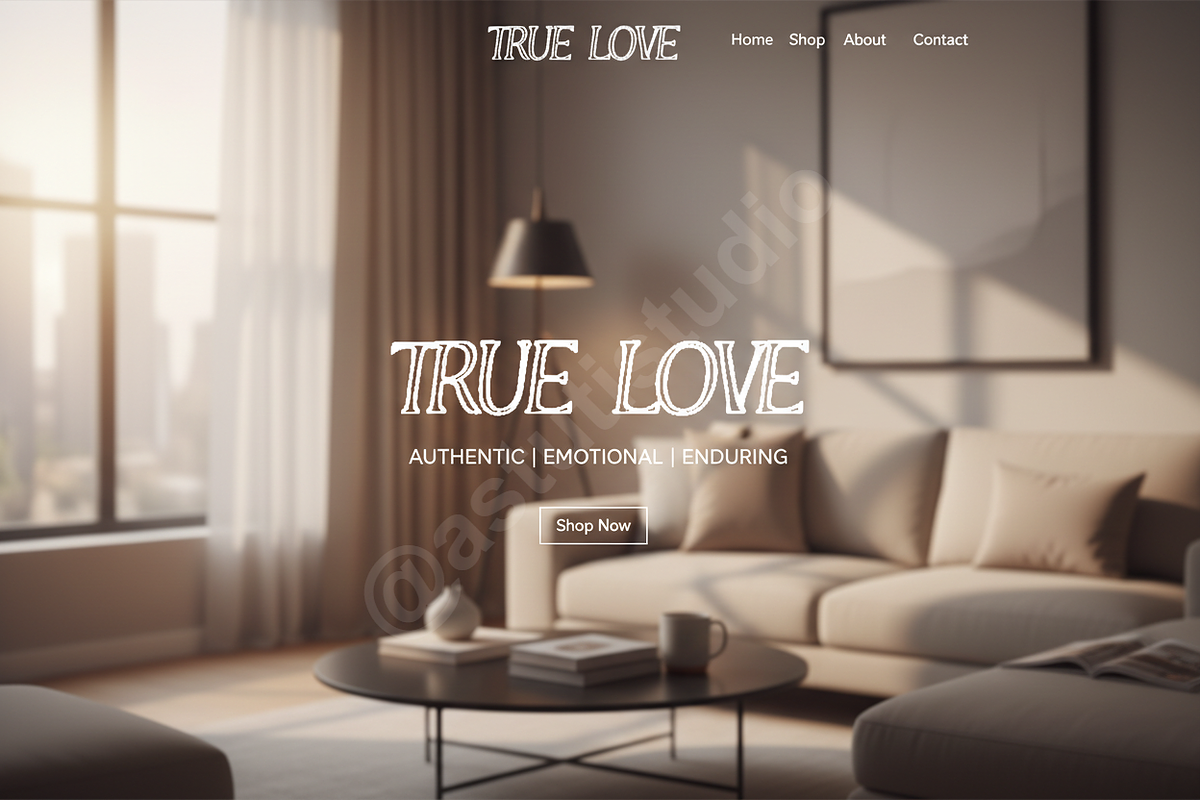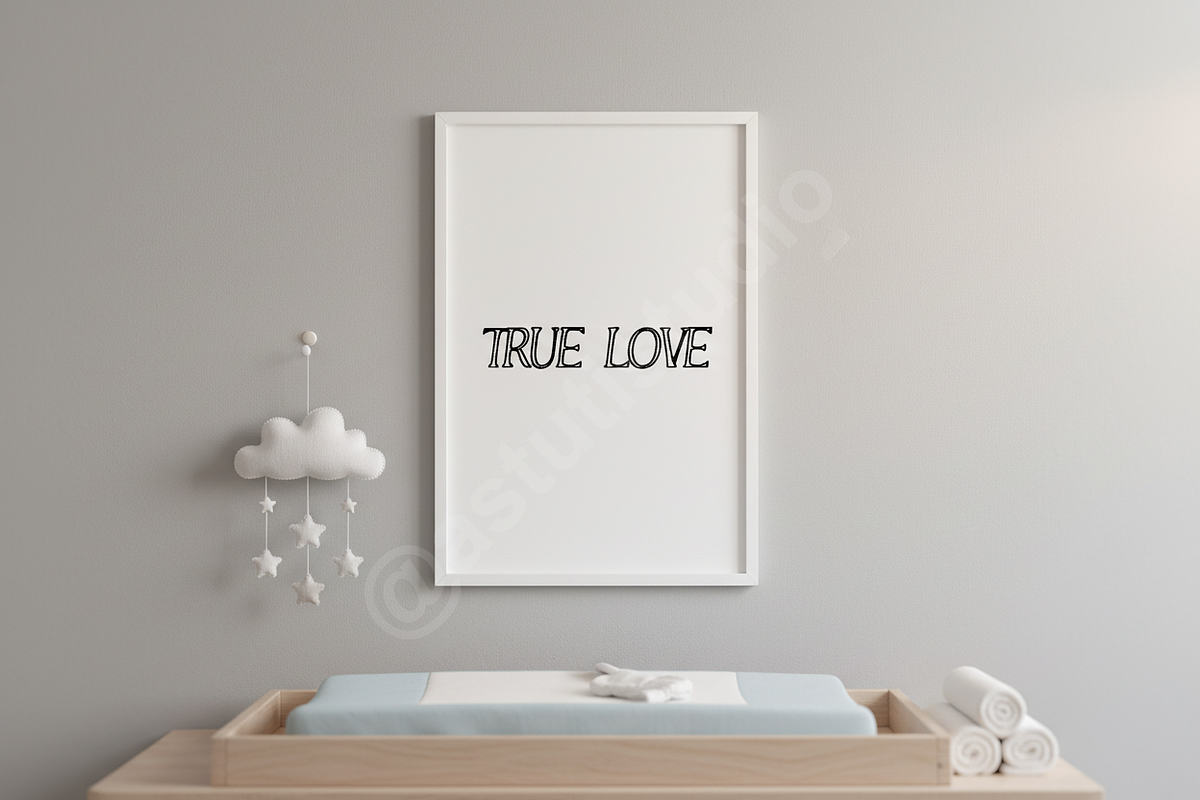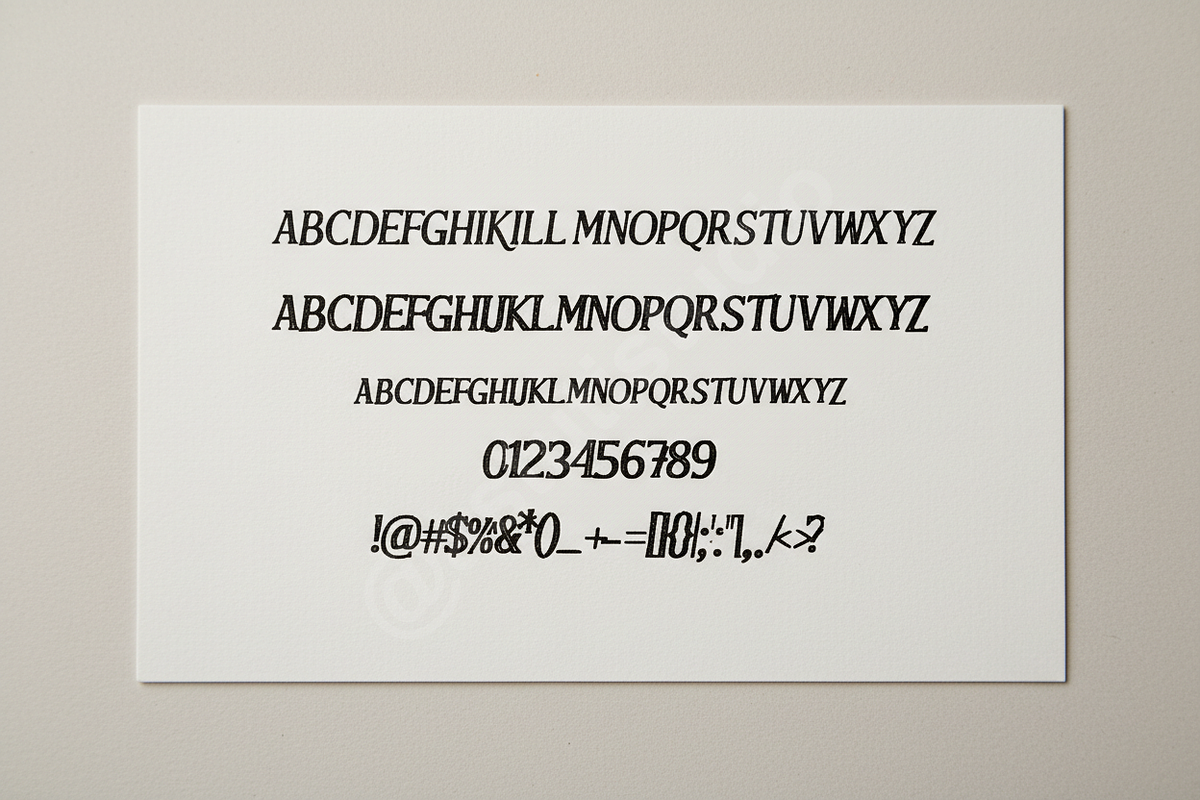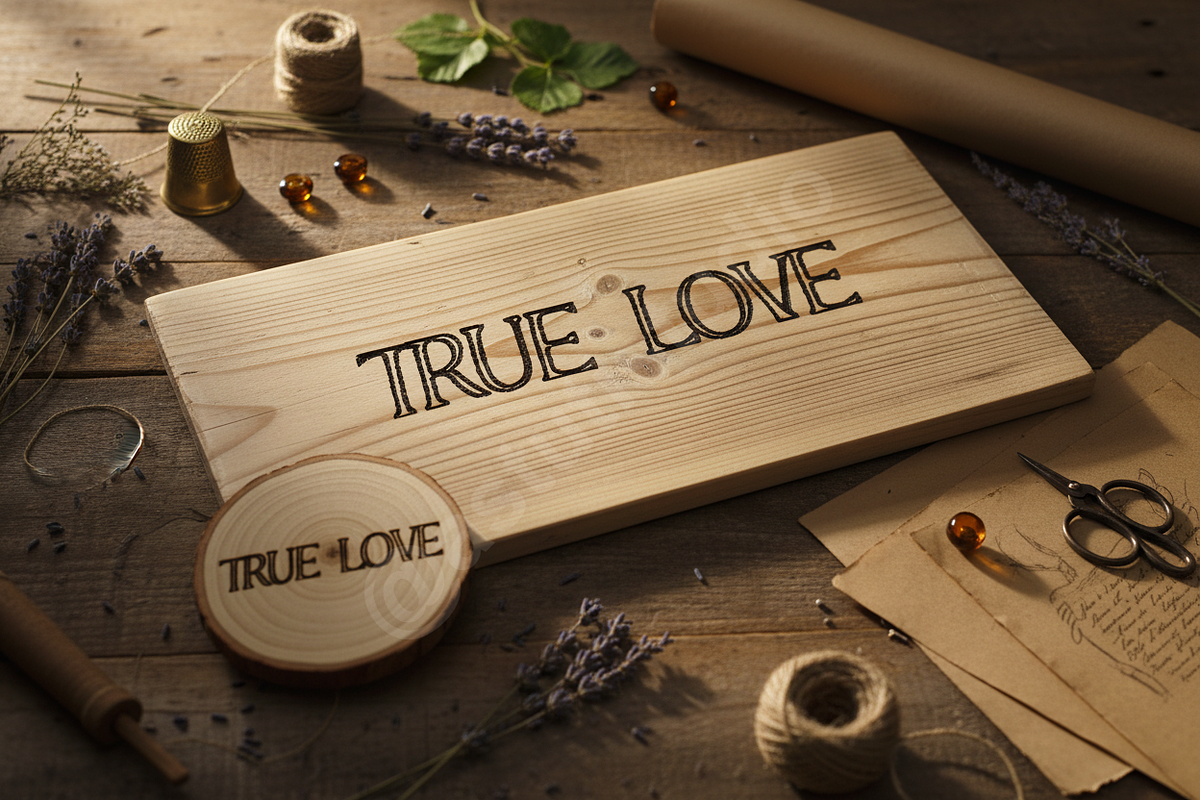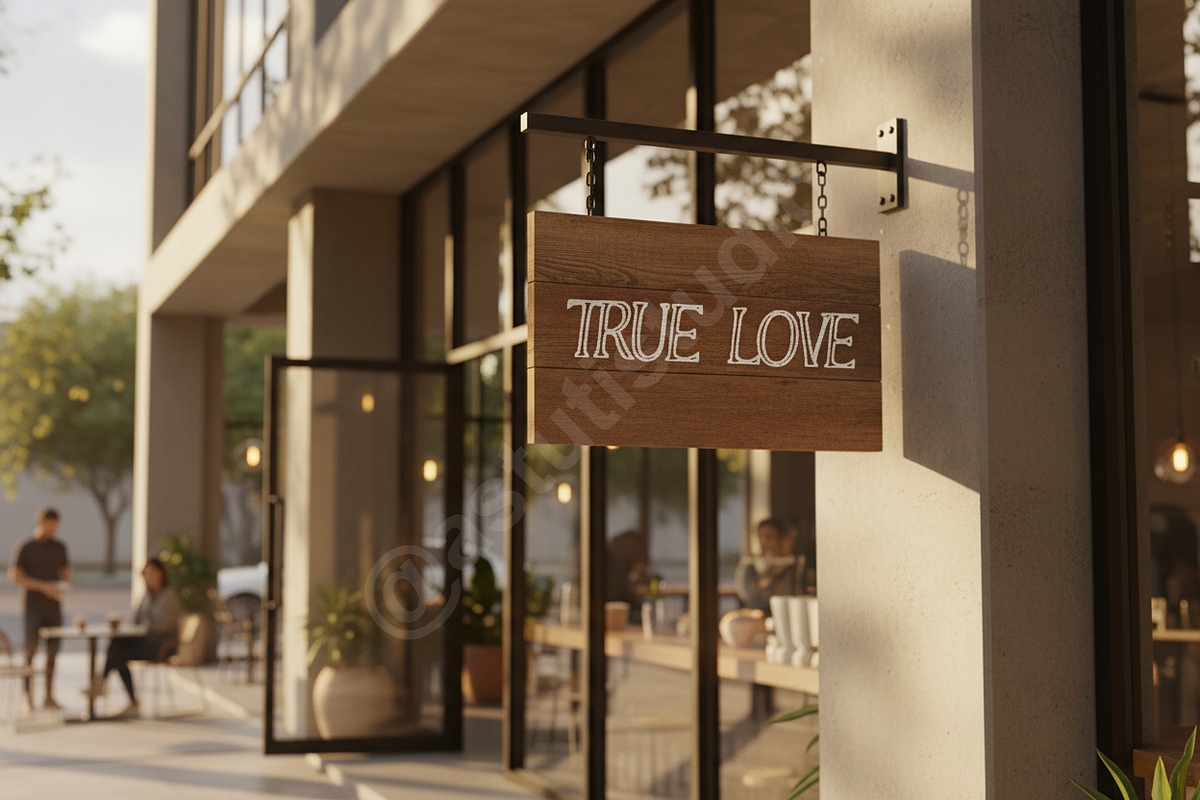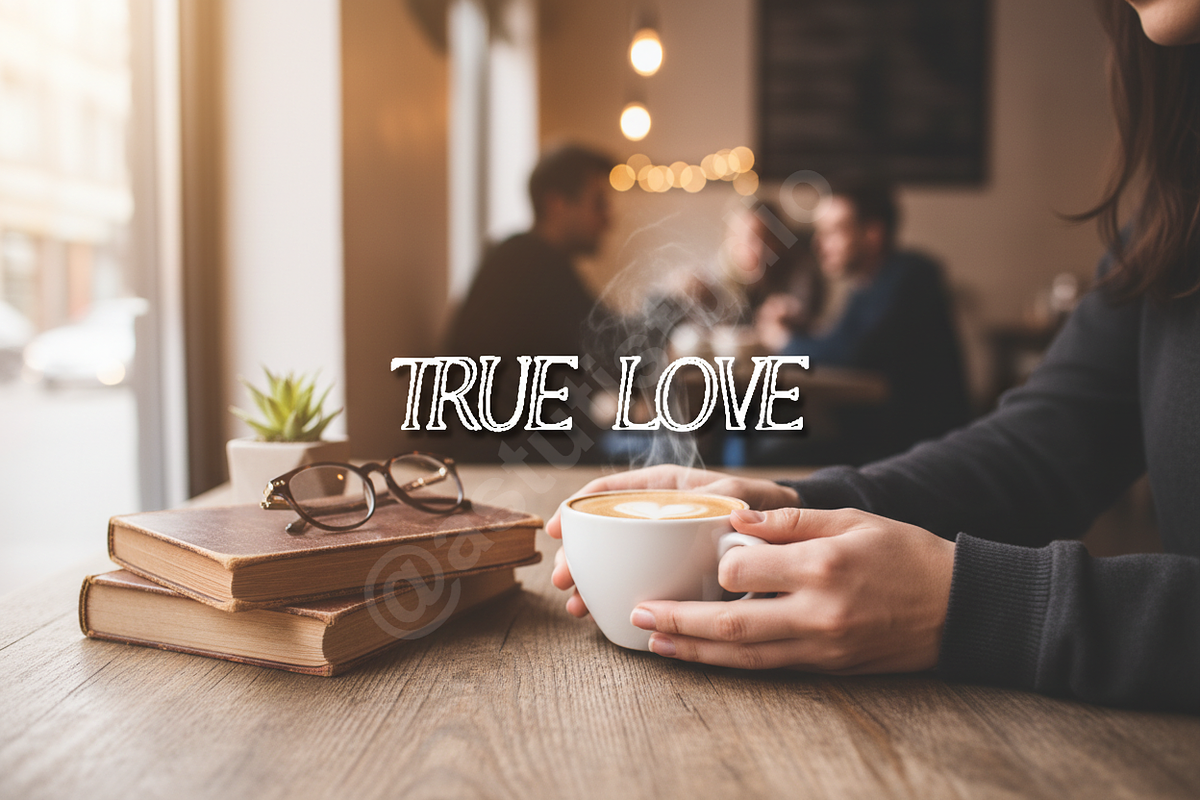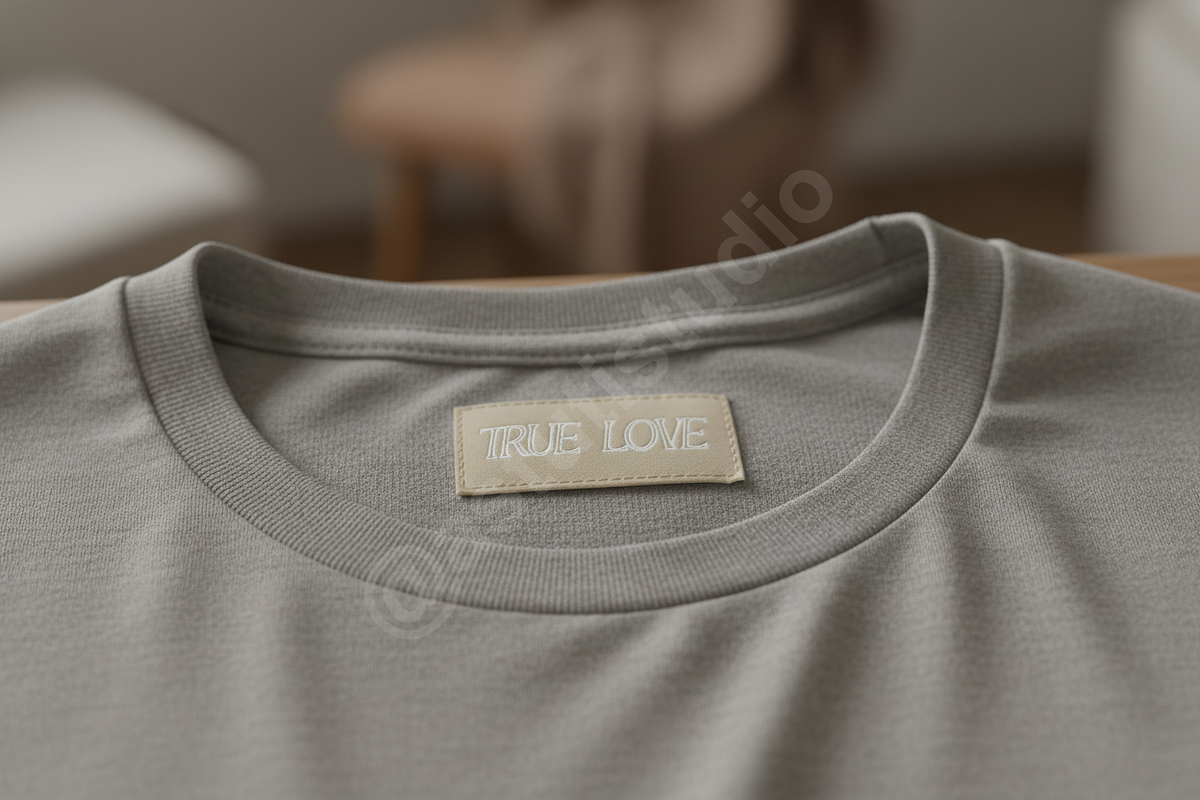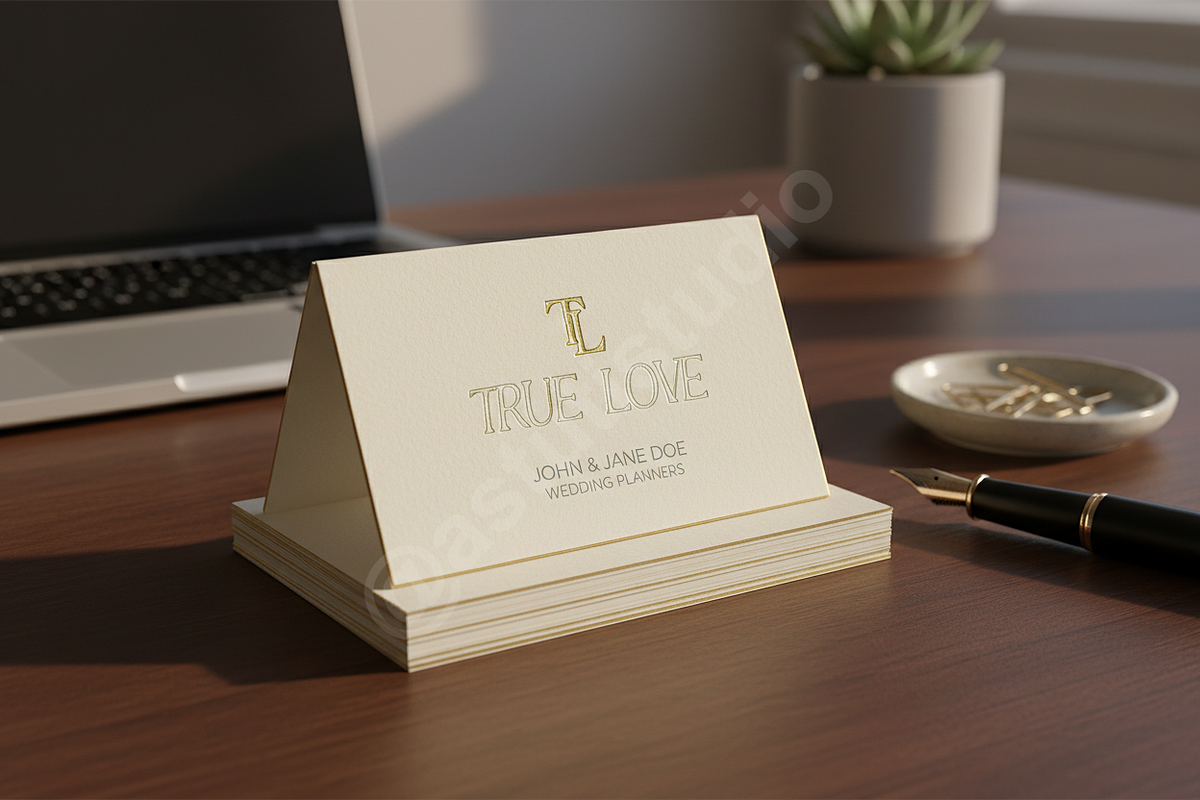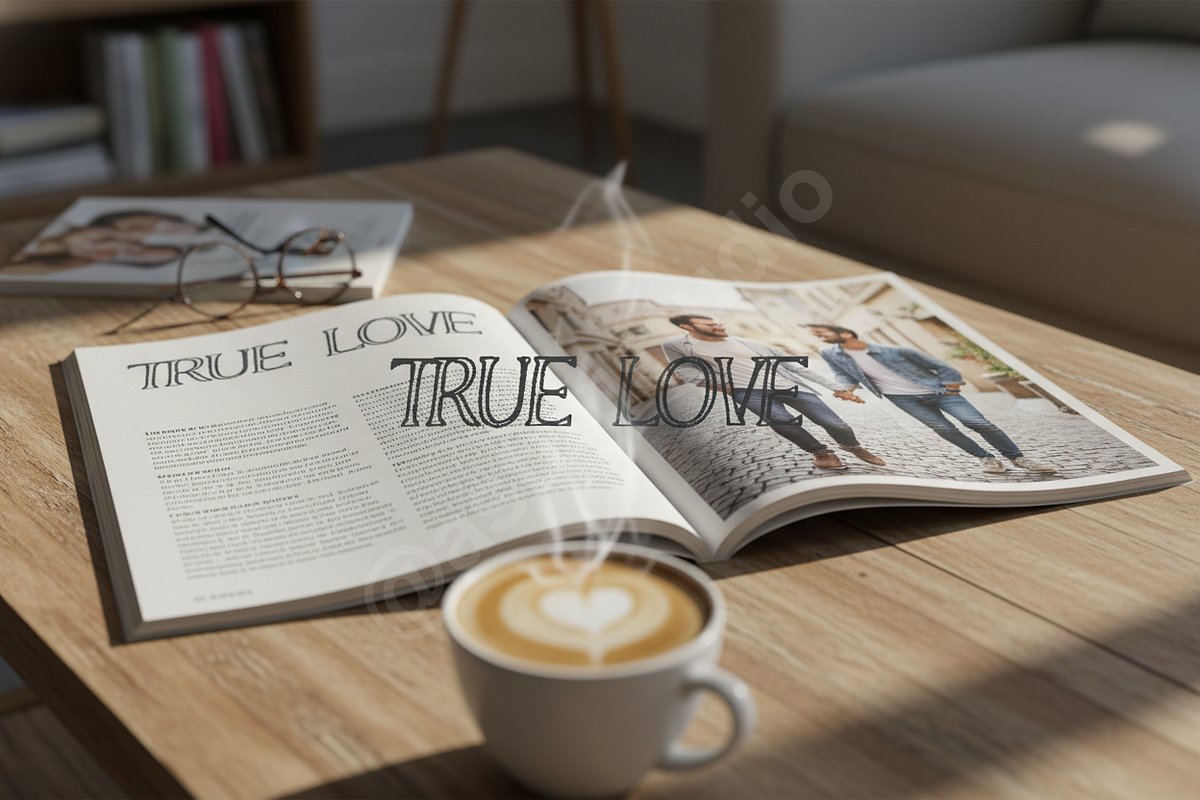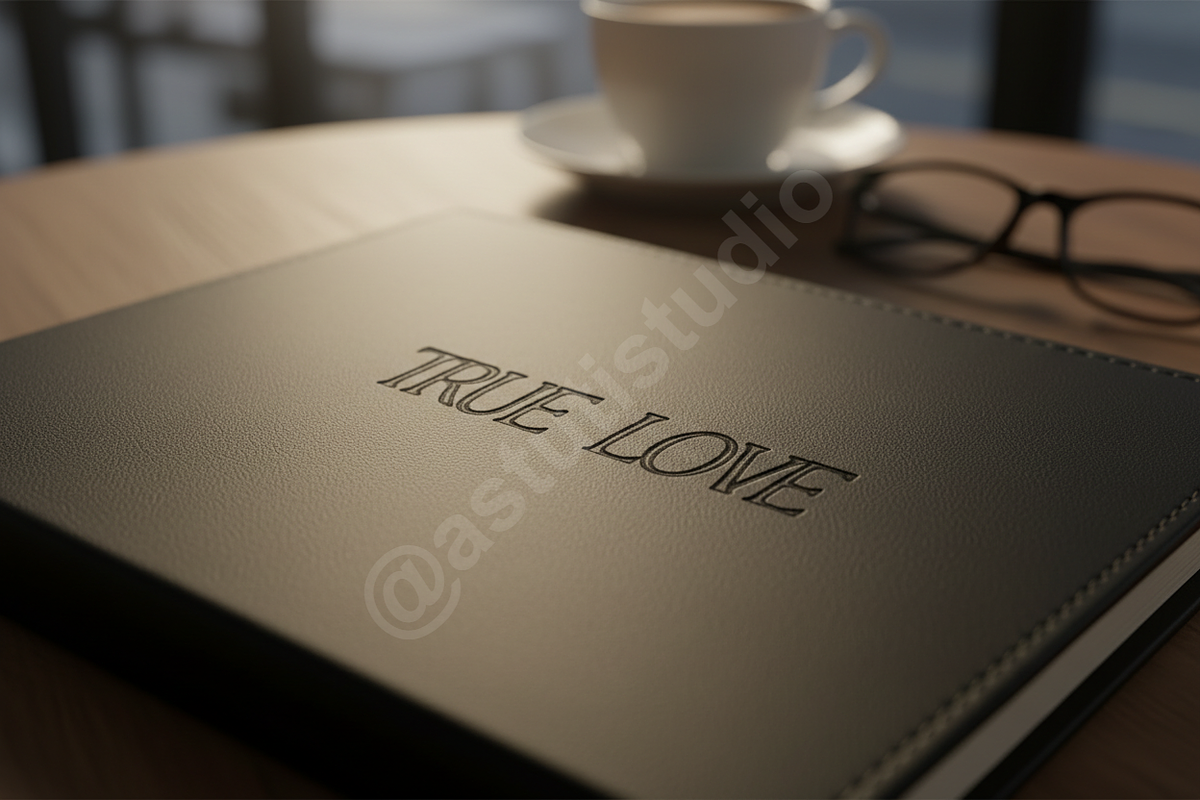
Febesi Typeface: Modern Luxury Serif
Febesi Typeface: Modern Luxury Serif for High-End Branding
Introduction Febesi is a meticulously crafted modern serif typeface designed for high-impact visual communication. Balancing classic elegance with a contemporary edge, Febesi delivers immediate sophistication and readability, making it the definitive choice for projects demanding refinement such as luxury branding, editorial layouts, and premium social media content.
Key Features for Premium Design
- OpenType Features: Access advanced ligatures, stylistic alternates, and discretionary glyphs to enhance typographic detail.
- Versatile Weight: Includes Regular and Bold weights to ensure adaptability across both print and digital media.
- Multilingual Support: Comprehensive language coverage for global brand consistency (A-Z, 0-9, standard punctuation, and accented characters).
- Clean Aesthetics: High contrast and sharp terminals ensure exceptional clarity, even at small sizes.
Febesi is perfect for:
- Luxury Branding and Identity Systems
- Magazine and Editorial Layouts
- High-End Packaging Design
- Refined Social Media Graphics and Marketing Materials